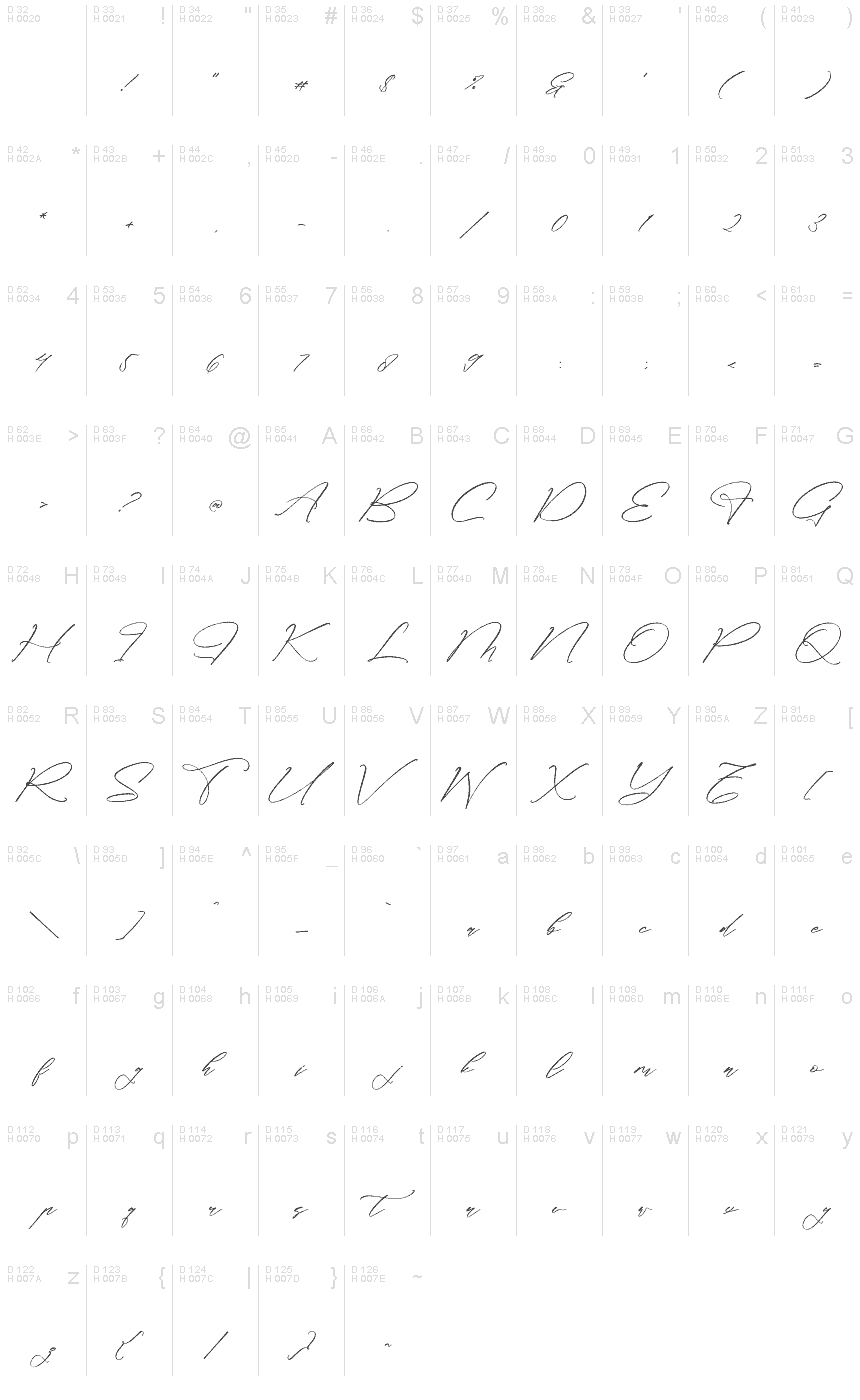
Classthy Theriond
Classthy Theriond font by Storytype Studio is a free handwritten signature font with an exceptionally elegant and sophisticated style. Its light weight gives it a traditional, refined, and flowing artistic touch that allows itself to easily become a part of your own designs.